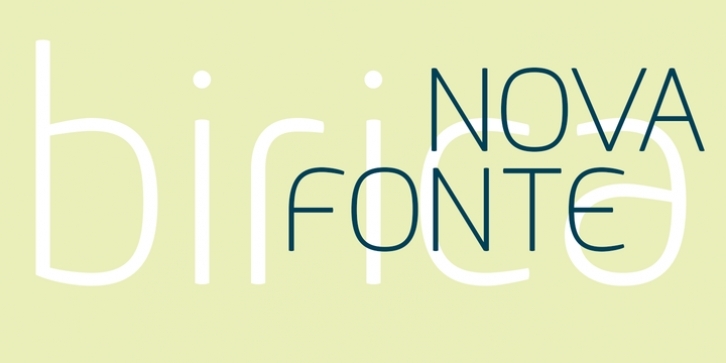
Birica proposes a more clear view totally versatile for any graphics application imaginable, be it branding, signage or advertising. Undoubtedly, the key word behind the Birica project is “flexibility.” It can be used everywhere you need an extremely readable and elegant fountain.